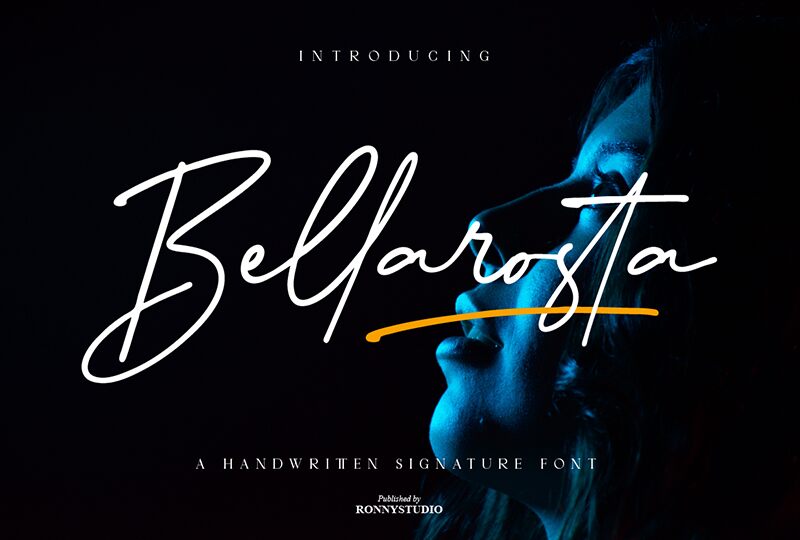
Bellarosta, created by Ronny Studio, is a captivating handwritten signature font with a light weight. Its elegant curves and fluid strokes give any project a touch of sophistication and personalization.
Perfect for wedding invitations, event posters, or even branding materials, Bellarosta adds an air of grace and refinement. This font effortlessly captures attention and creates a memorable impression.
Let Bellarosta transform your designs into stunning works of art that leave a lasting impact on your audience.